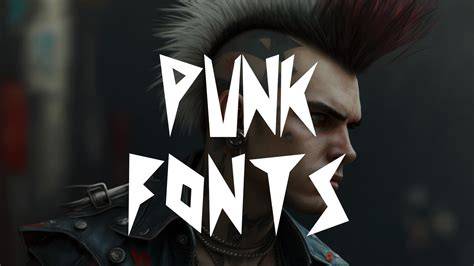
Punk Fonts: A Brief Guide
Punk fonts are a unique and often outrageous type of font that has been around for decades. It has been used in a variety of contexts, from punk rock album covers and posters to marketing materials and logos. Punk fonts are often bold and attention-grabbing, and they can be used to make a statement or even to draw attention to a particular product or message. In this guide, we’ll take a closer look at punk fonts and how they can be used effectively.
What Are Punk Fonts?
Punk fonts are a type of font that has been inspired by punk rock culture and the punk rock aesthetic. Punk fonts are usually characterized by their boldness, their unconventional letterforms, and their often-abrasive designs. Punk fonts are designed to be attention-grabbing and to stand out from the crowd. They’re often used to make a statement or to draw attention to a particular message or product.
Where Are Punk Fonts Used?
Punk fonts are used in a variety of contexts. They can be used for album covers, posters, and other marketing materials. Punk fonts are often used for logos, as well, as they can help to create a unique, eye-catching look for a brand. Punk fonts are also often used for apparel designs, as they can be used to create a unique and stylish look. Punk fonts are also often used in online content, such as web pages, blogs, and social media posts.
How to Choose the Right Punk Font
When choosing a punk font, it’s important to consider the context in which it will be used. Punk fonts can be used to create a bold and attention-grabbing look, but they can also be used to create a more subtle, stylish look. It’s important to consider the message you’re trying to convey and the audience you’re trying to reach before choosing a punk font. It’s also important to consider how the font will look when it’s printed or displayed digitally.
Punk fonts can be a great way to make a statement or to draw attention to a particular message or product. They’re often bold and attention-grabbing, and they can be used in a variety of contexts. When choosing a punk font, it’s important to consider the context in which it will be used and the message you’re trying to convey. With a little bit of research and experimentation, you can find the perfect punk font for your project.